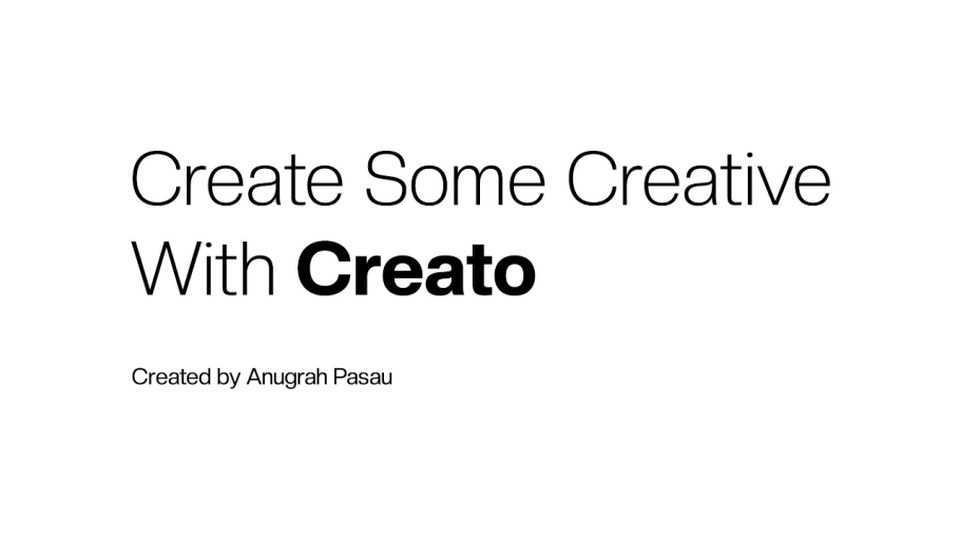
Creato Font Family › Fontesk – Fonte Grátis
Download Creato Display is a modern sans serif typeface with characters that features various geometric shapes. Creato Display is a versatile typeface that is perfect for any kind of project: display, editorial, web, interface, app, etc.
Designer: Lafontype Foundry